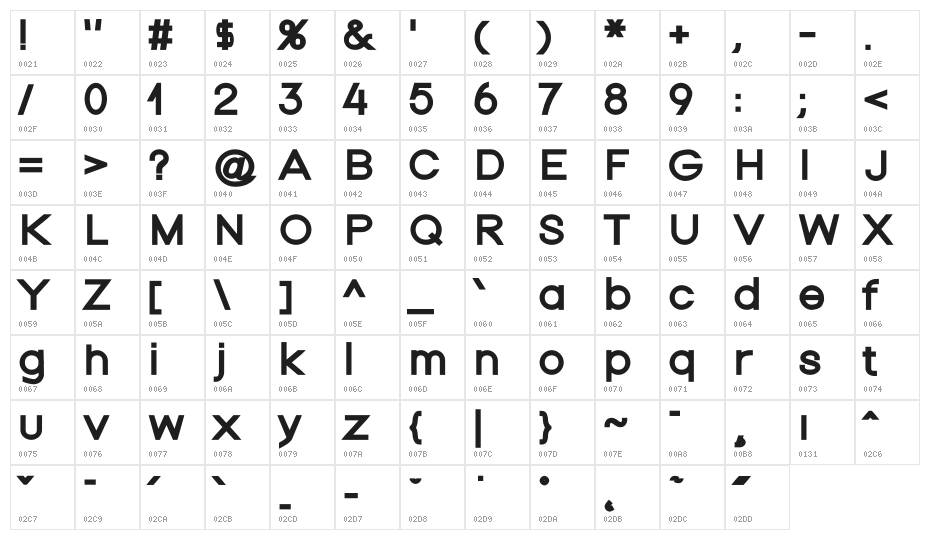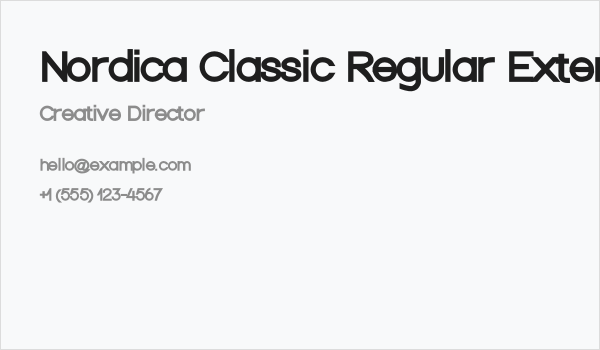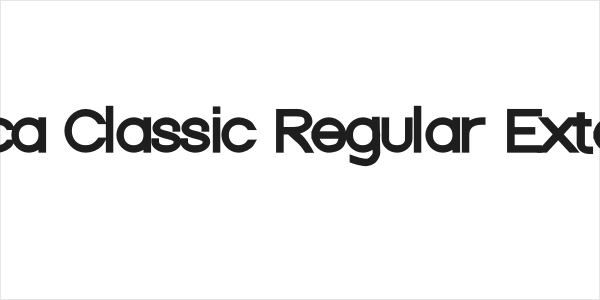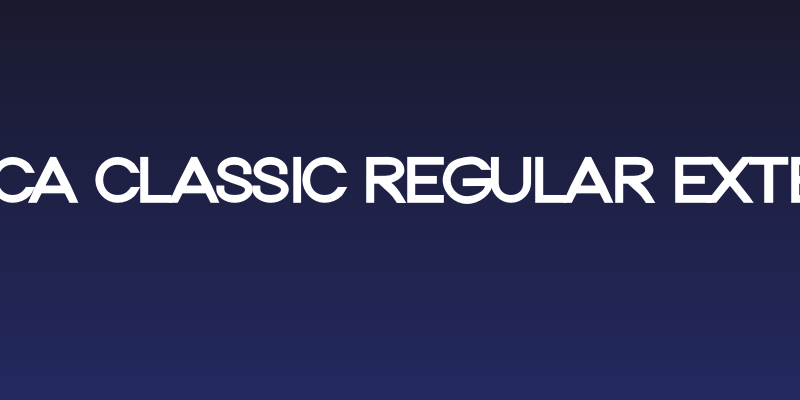
Nordica Classic Regular Extended Font
Nordica Classic Regular Extended Description
This font features a clean and modern sans-serif style with a geometric structure. The characters are uniform in width, providing a balanced and harmonious appearance. The uppercase letters are bold and assertive, while the lowercase letters maintain a consistent line weight, enhancing readability. The numerals are clear and distinct, making them suitable for various applications. Special characters are well-defined, adding versatility to the font. The overall design is sleek and contemporary, making it ideal for both digital and print media.